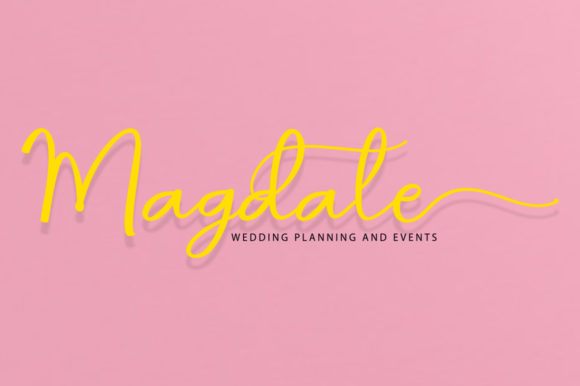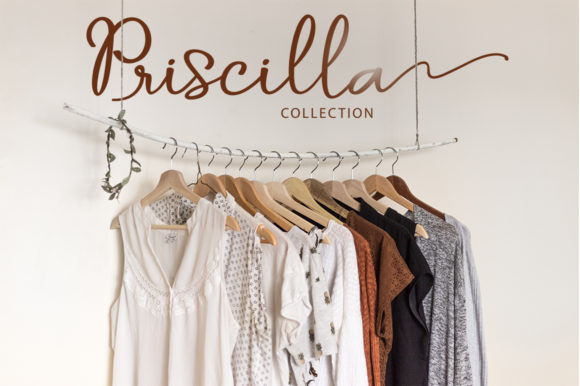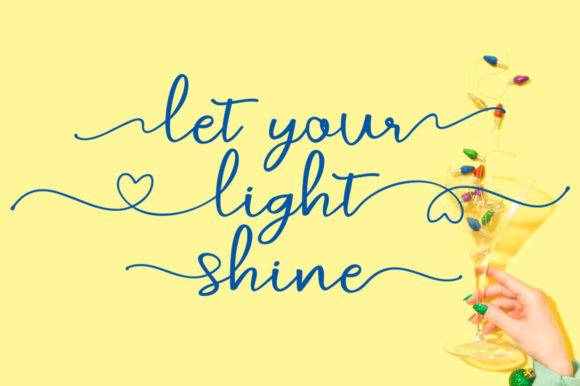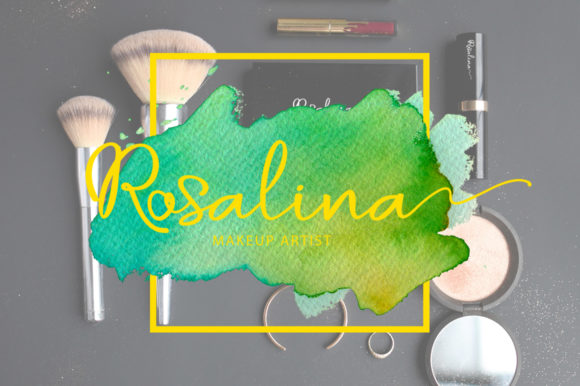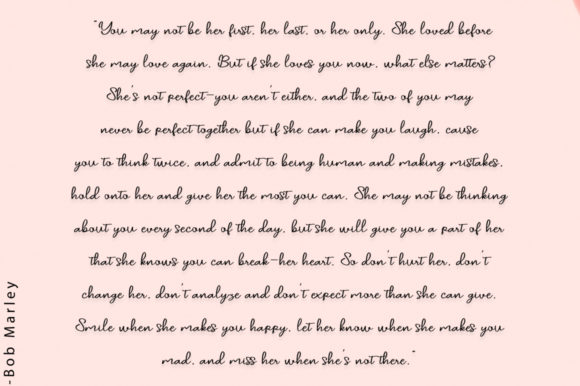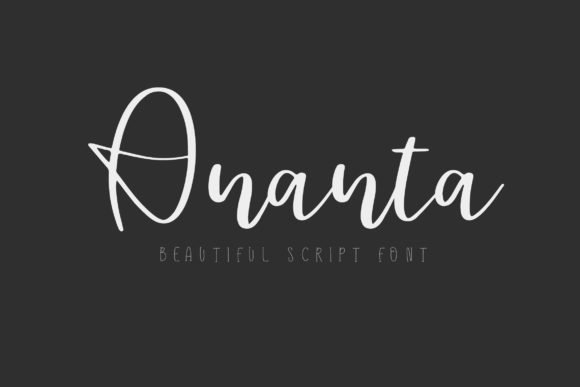
The Perfect Script: Introducing Bocelli Font
There’s nothing quite like the feeling of discovering a new font that speaks to your creative soul. For designers, this moment is like stumbling upon a hidden treasure that elevates your work to the next level. And that’s exactly what happened when we came across the Bocelli Font – a stylish and delicate script font that’s sure to leave you breathless.
Bocelli Font is a clean, thin, and smooth script font that adds a touch of sophistication to any design. With its PUA encoding, accessing all the glyphs and swashes is a breeze, making it a valuable tool for designers who crave perfection. Whether you’re working on a wedding invitation, a branding project, or a social media campaign, Bocelli Font is sure to be a hit.
- Unique Characteristics: Elegant, refined, and sophisticated design with a classic feel
Bocelli Font Review
The Bocelli font, created by Alessandro Butti, is a beautiful and elegant script font that has been widely used in various design projects. ✨ One of its strongest features is its versatility, making it suitable for both formal and informal designs.
Here are some of its key strengths:
- ✨ Elegant and refined aesthetic, perfect for creating a sense of sophistication and luxury
- ✨ Highly versatile, suitable for a wide range of design projects, from logos and branding to packaging and signage
- ✨ Great for creating a sense of movement and flow, making it perfect for titles and headings
- ⚠️ Limited to script-based typography, which may not be suitable for all design projects
- ⚠️ Can be challenging to read at small font sizes, making it best used for larger typography
- ⚠️ May not be suitable for designs that require a more modern or edgy look
Overall, I think the Bocelli font is a beautiful and elegant script font that can add a touch of sophistication and luxury to any design project. However, it may not be suitable for all design projects, and designers should carefully consider its limitations before using it.
Tip: Use Bocelli Font for headings and titles to add a touch of elegance to your designs.
Tip: Use Bocelli Font for creating custom typography and logo designs.
Tip: Use Bocelli Font for creating visually appealing presentations and documents.
Bocelli Font is ideal for:
- Restaurant and cafe menus
- Luxury product branding
Remember to use Bocelli Font in moderation to avoid overwhelming your design.